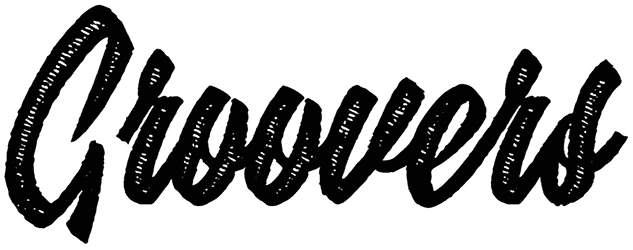
Groovers Font
The letters in Groovers are thick, and the font has a strong, retro feel. Even though it’s missing the numbers and a bit unreadable, this old-school font does a great job of grabbing people’s attention.
Two overlapping fonts